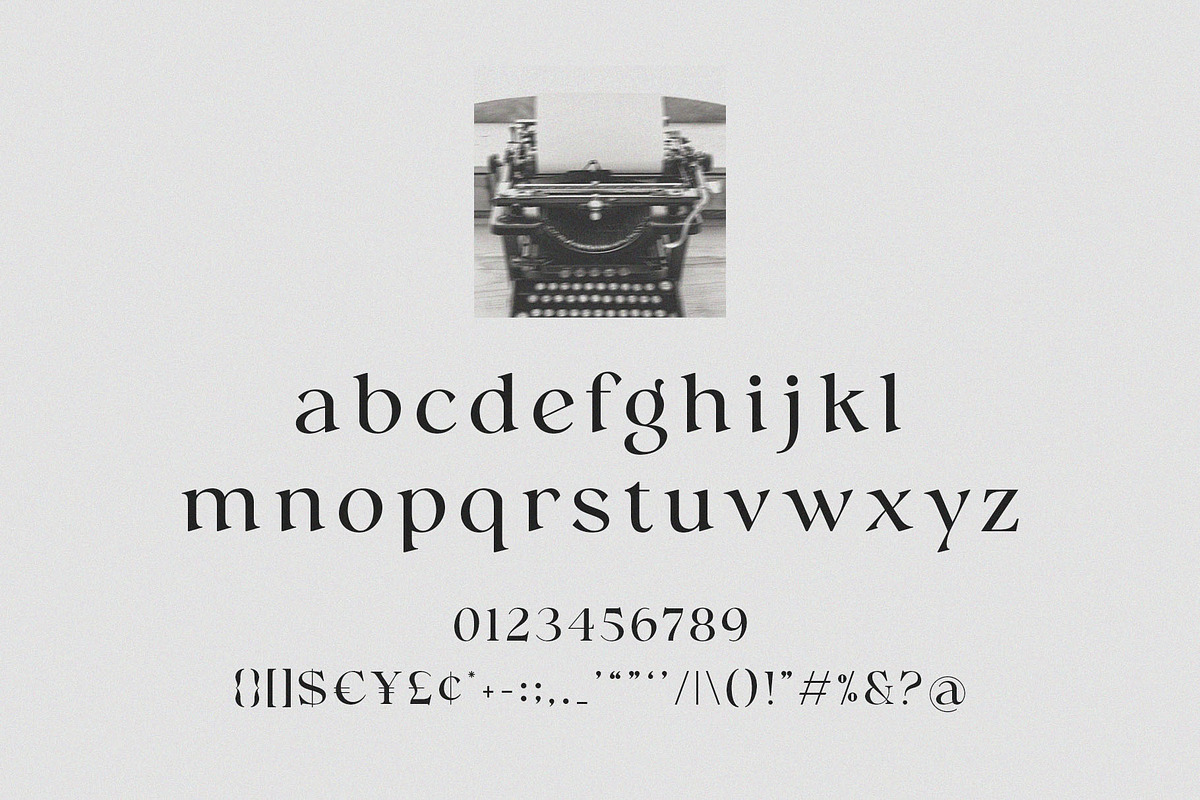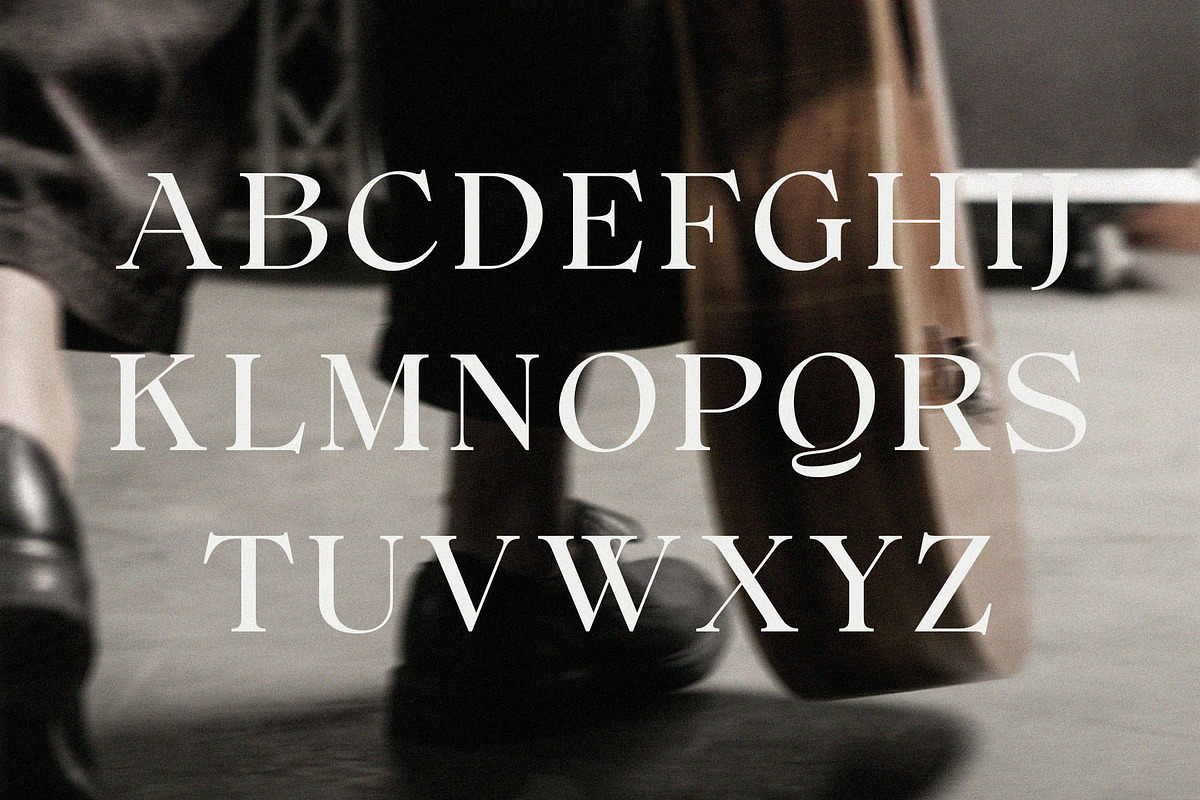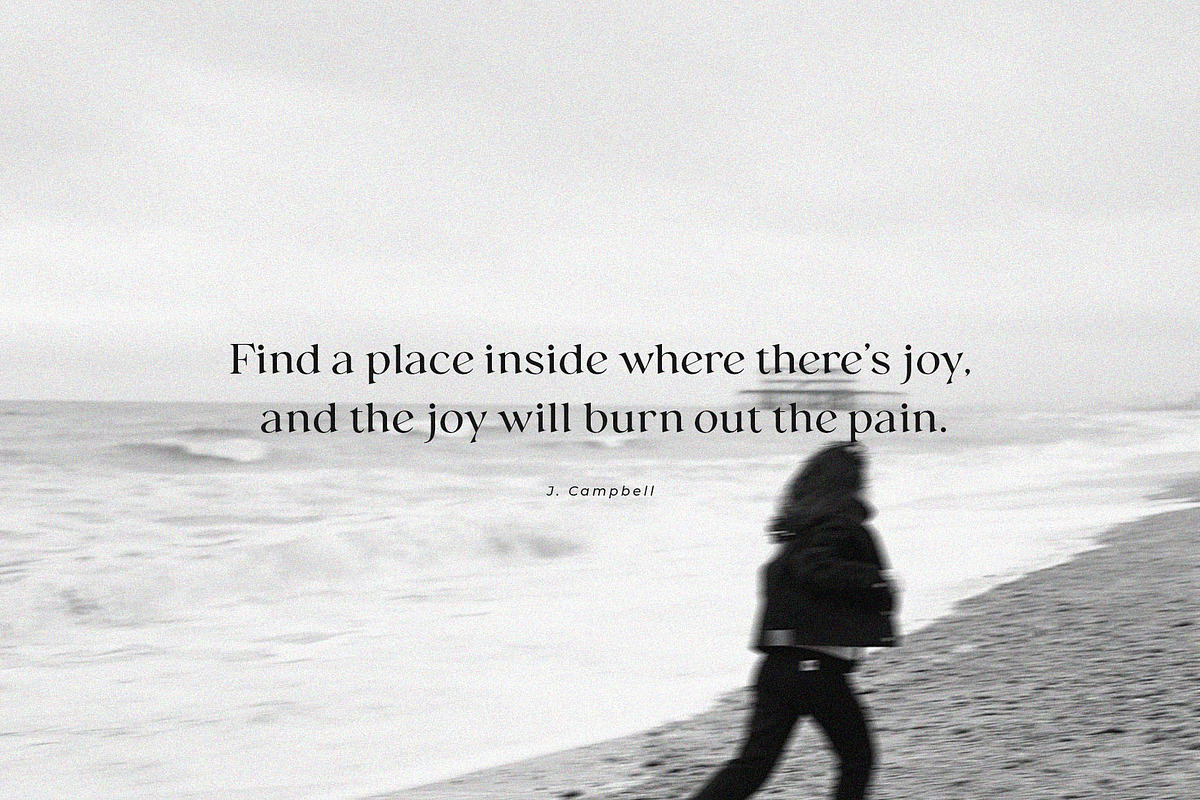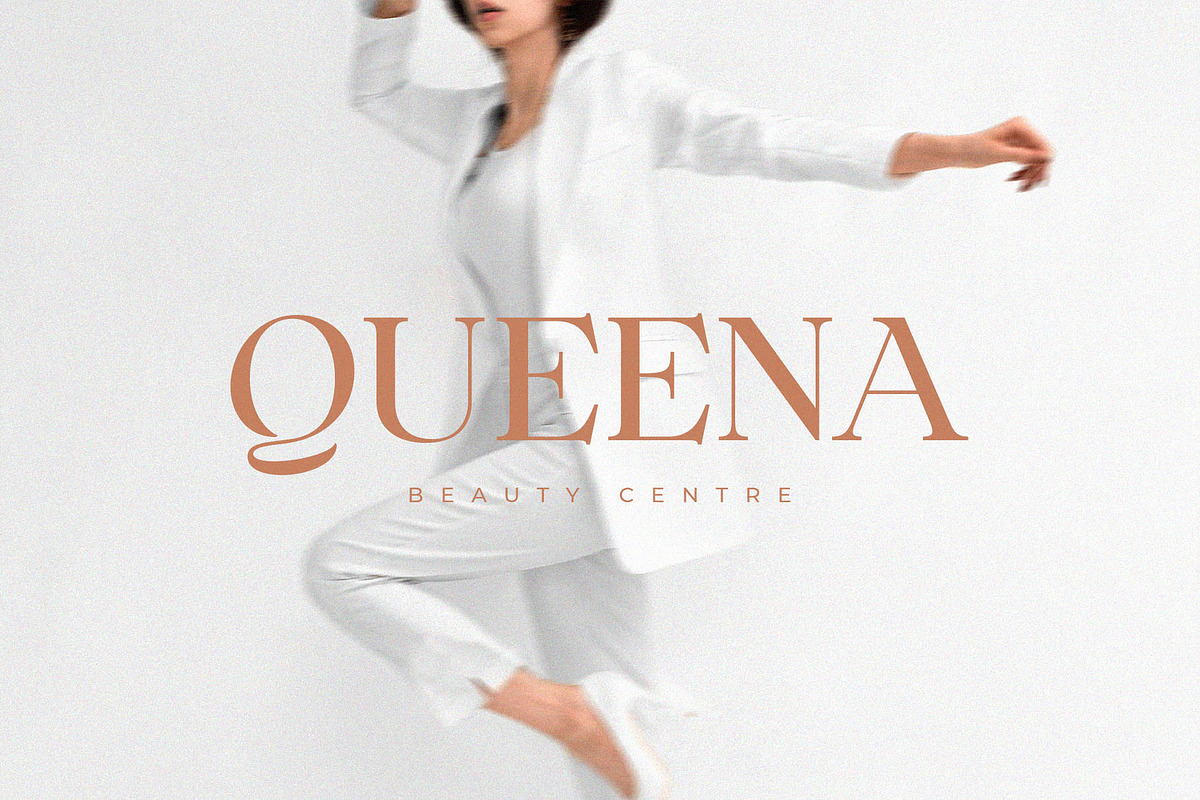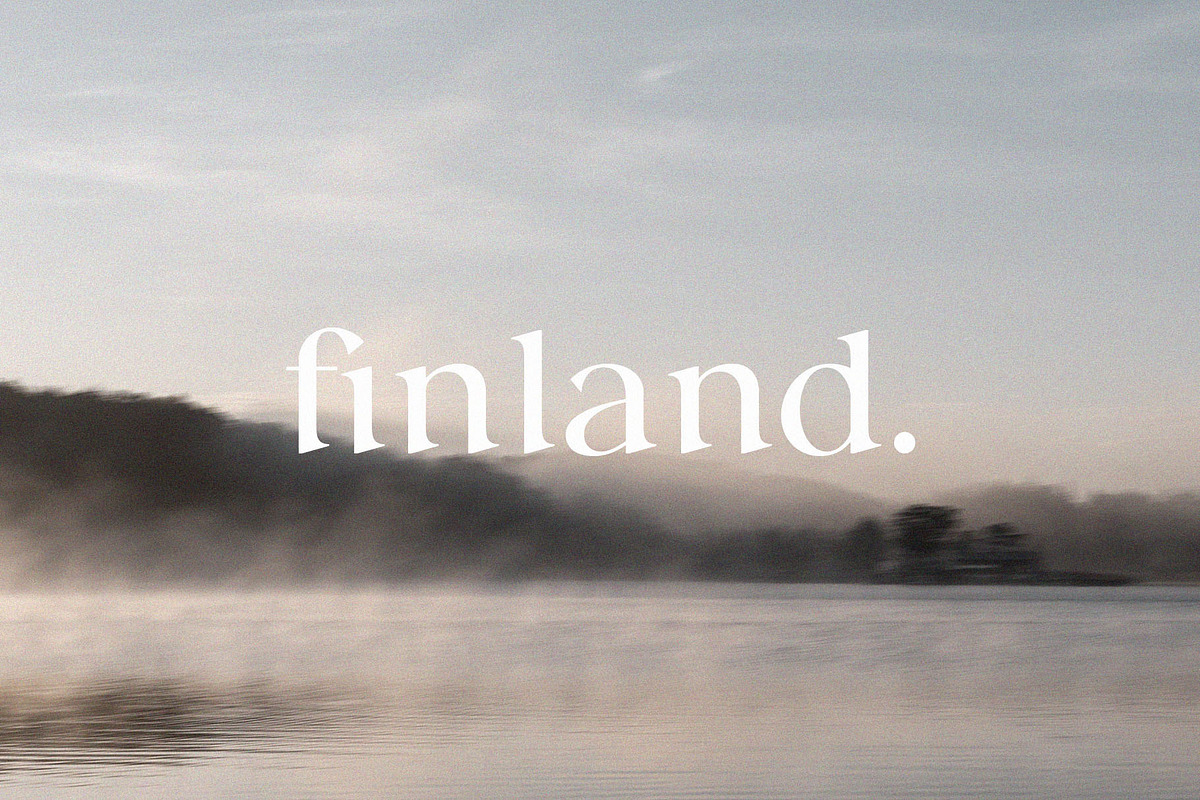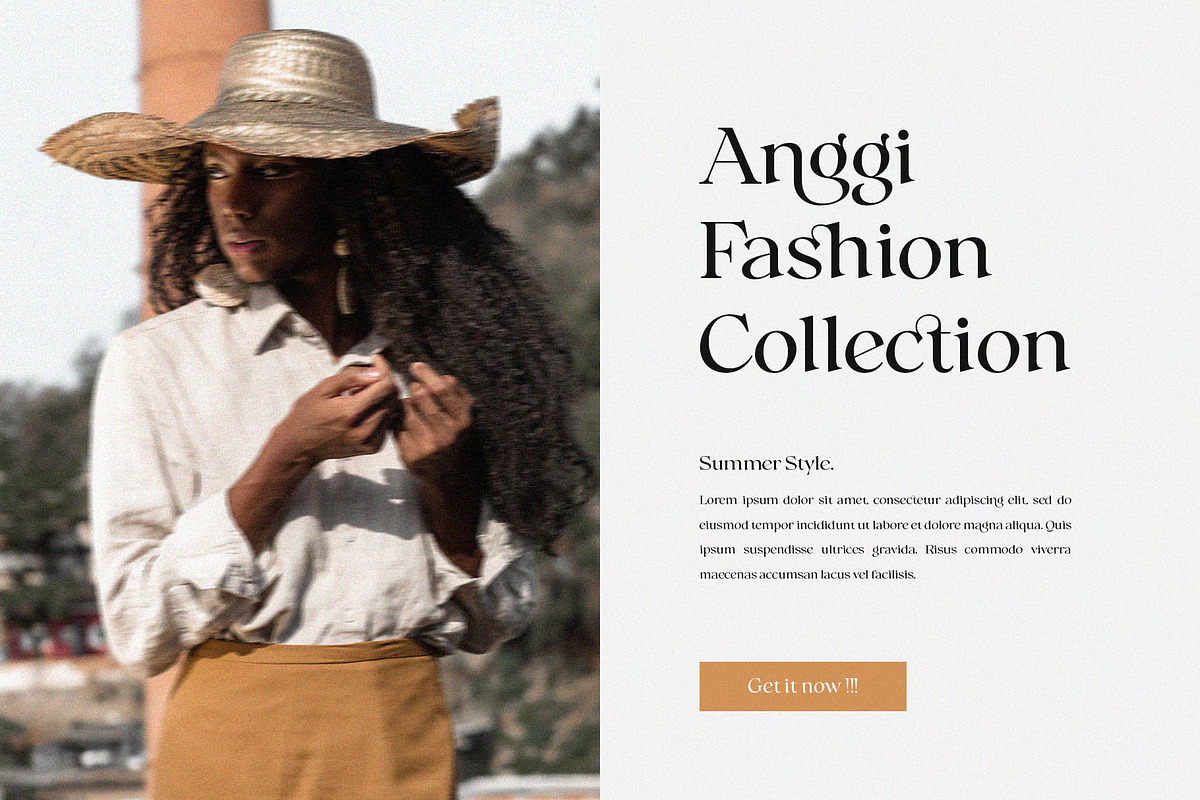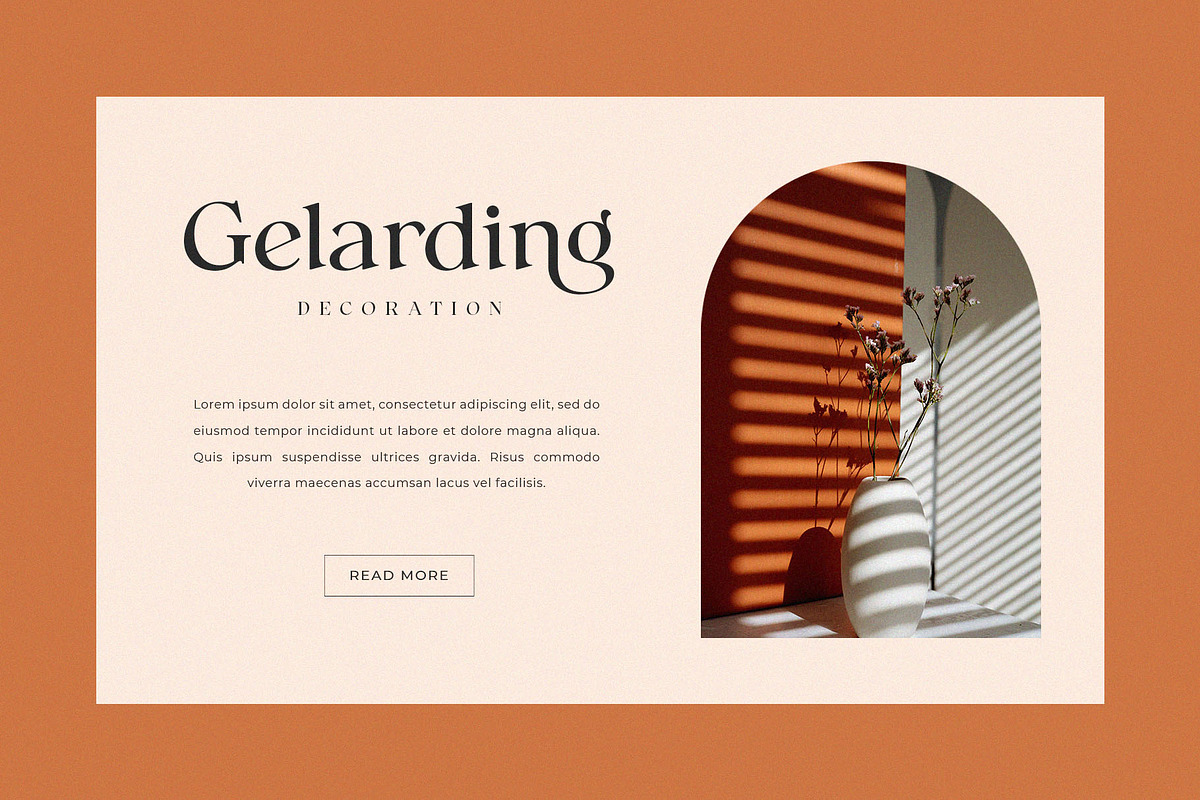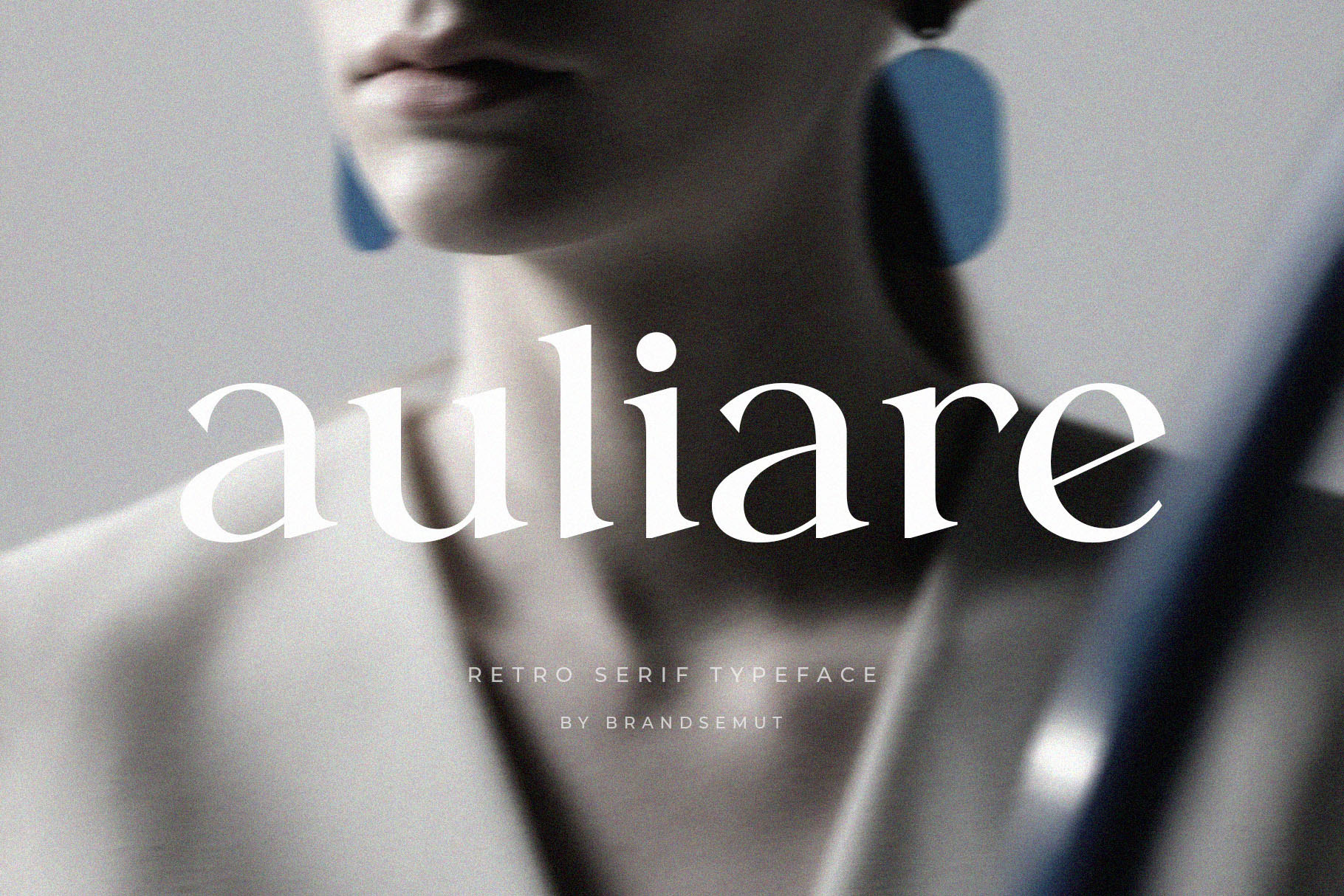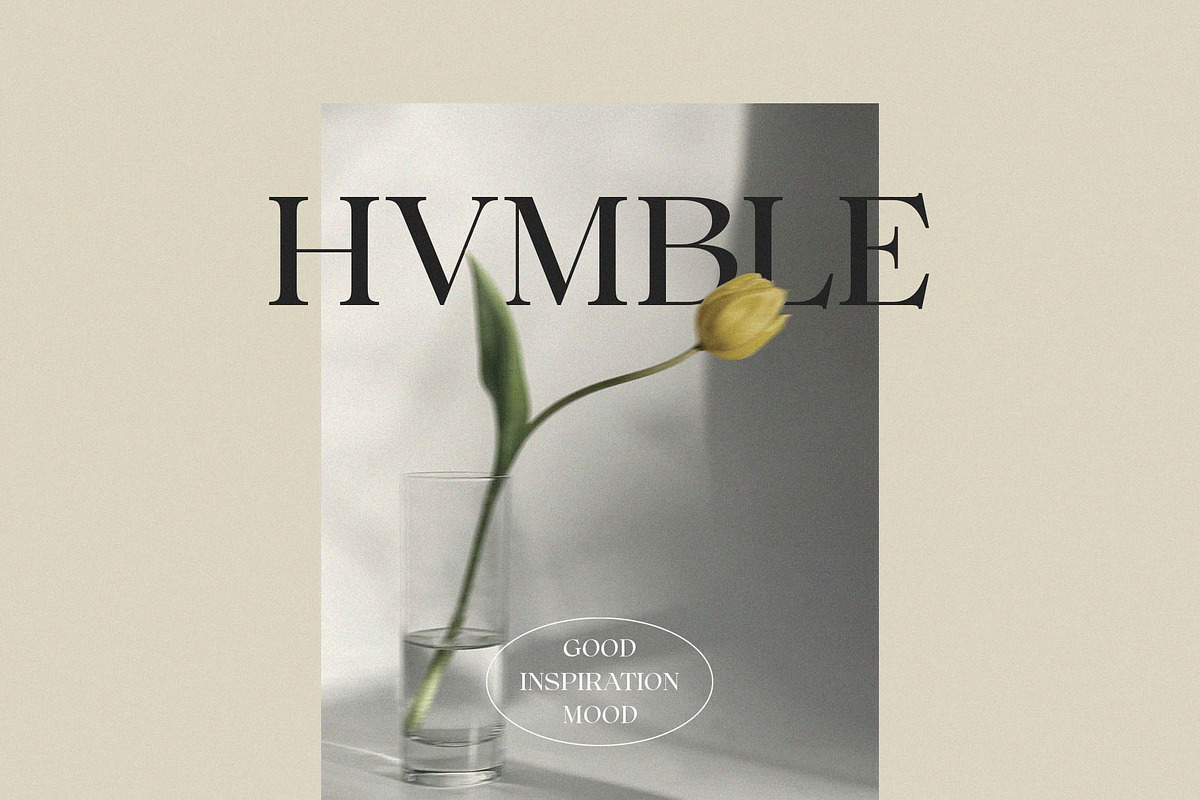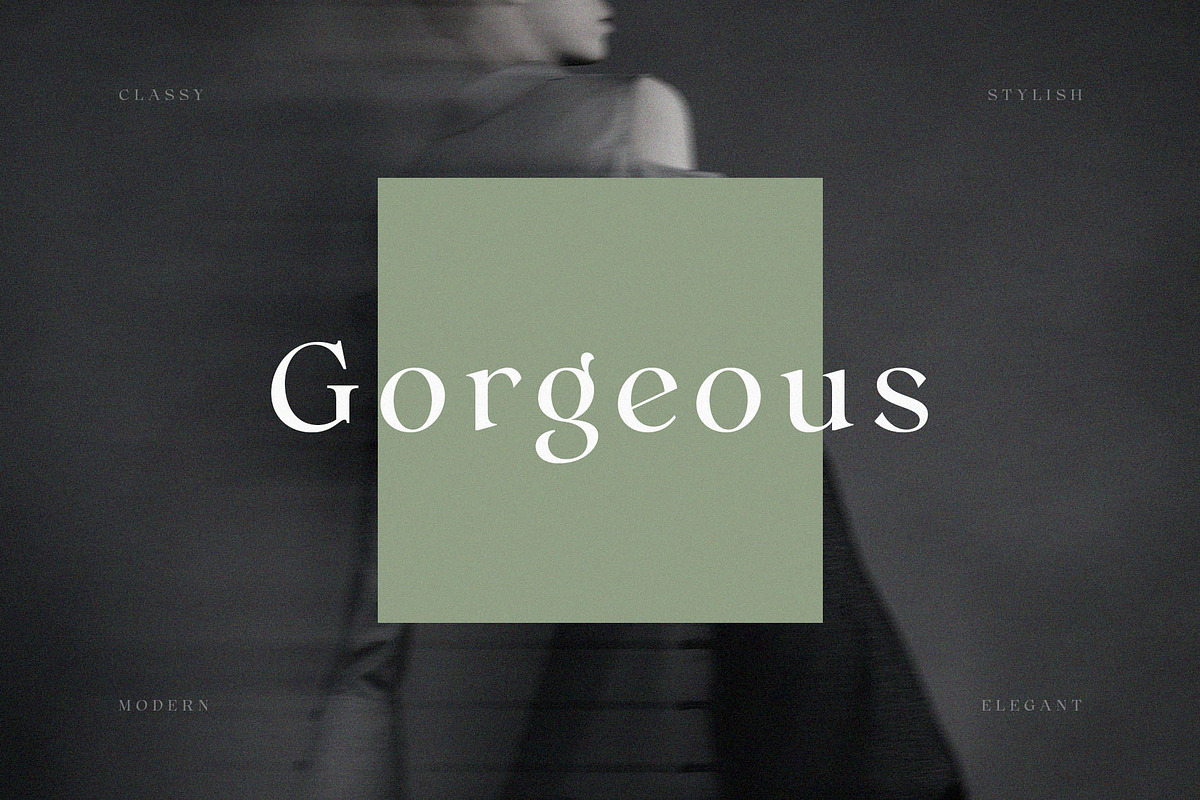
Auliare – Retro Serif Typeface
Introducing Auliare Retro Serif Typeface. Auliare is a retro and classics typeface, best used as a display for headings, logos, branding, magazines, product packaging and invitations. Auliare come with clean lines and smooth curves give any project an extra touch of class.